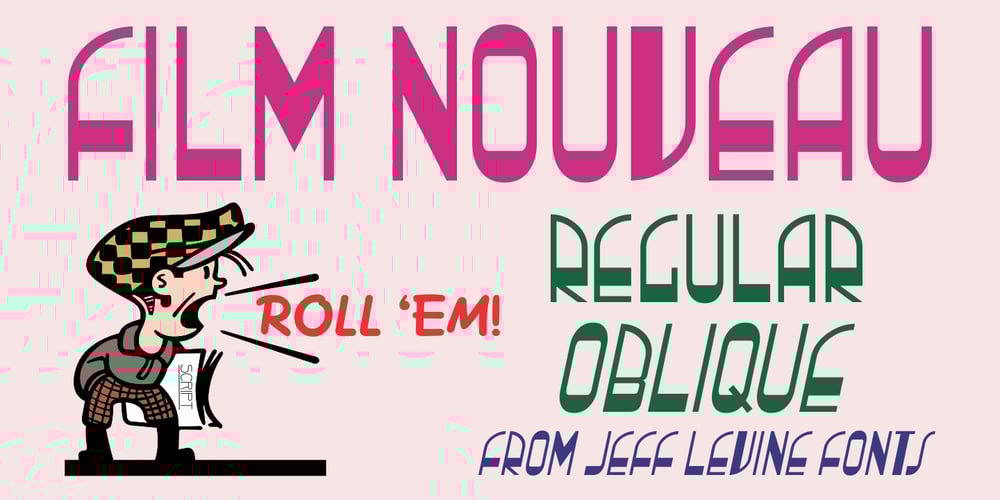
Film Nouveau JNL Font Family was designed by Jeff Levine and published by Jeff Levine. Film Nouveau JNL contains 2 styles and family package options. An image in the December 14, 1938 edition of “The Exhibitor” (a movie industry trade magazine) carried a picture of the Chelten Theater in Philadelphia, Pennsylvania.The marquee sign had neon lettering in a condensed type style that had some Art Deco influences, but leaned more toward that of Art Nouveau.This provided a model for the typeface Film Nouveau JNL, which is available in both regular and oblique versions.